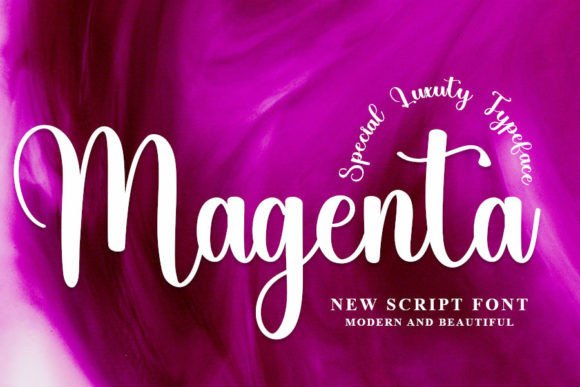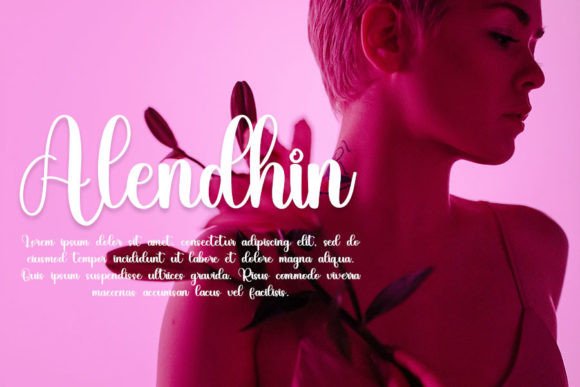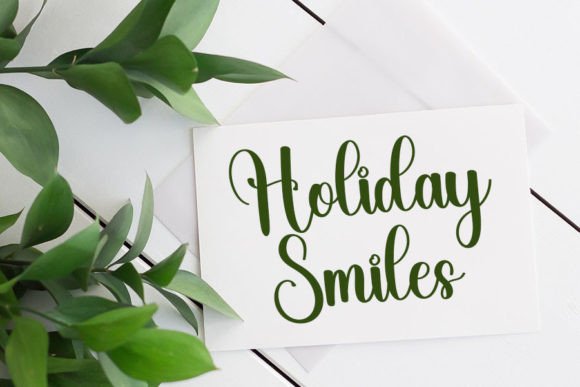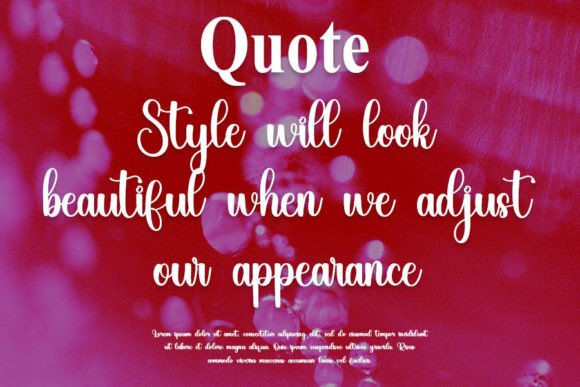
Add Beauty and Refinement with Magenta Font
Magenta Font is a beautiful and refined handwritten typeface designed to bring elegance and style to your creative projects. Its modern and classy look makes it ideal for a wide range of uses. Whether you’re creating logos, branding materials, wedding invitations, or social media posts, Magenta Font will add a polished and sophisticated touch.
Furthermore, its smooth letterforms and balanced style give your designs a fresh and inviting appearance.
Versatile Uses for Magenta Font
Magenta Font works perfectly in many design projects, including:
Logos and brand identities
Wedding and event invitations
Stationery and thank-you cards
Product packaging and labels
Social media graphics and posts
Posters, flyers, and promotional materials
Thanks to its refined and modern handwritten style, Magenta Font adds a sense of luxury and professionalism to your work.
Also, its well-kerned letters and clear spacing ensure readability and aesthetic appeal across different sizes and media.
Why Designers Choose MagentaFont
Designers and creatives appreciate MagentaFont for its elegant and modern style. It adds a personal and professional look that enhances any project. Whether you are a professional designer or a hobbyist, MagentaFont helps you create beautiful and memorable typography.
Use MagentaFont to bring sophistication and charm to your next creative idea.